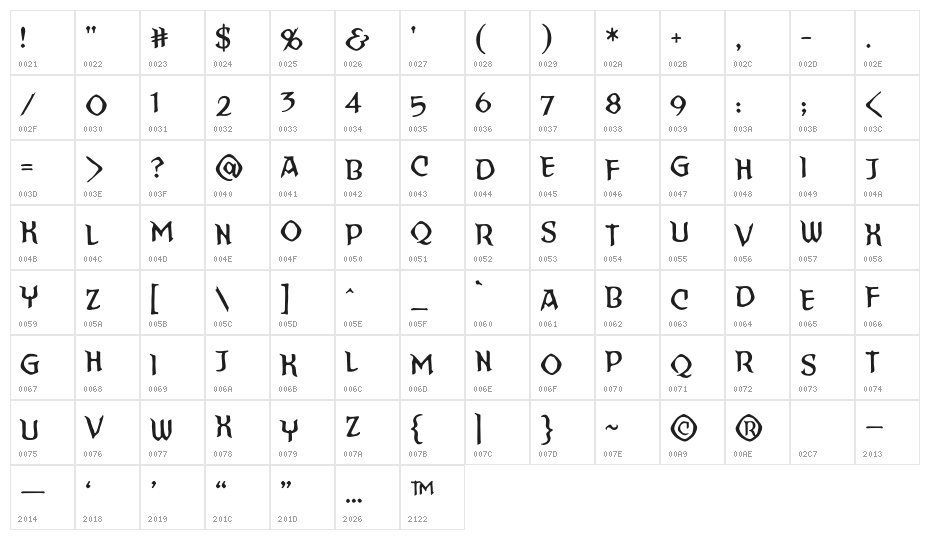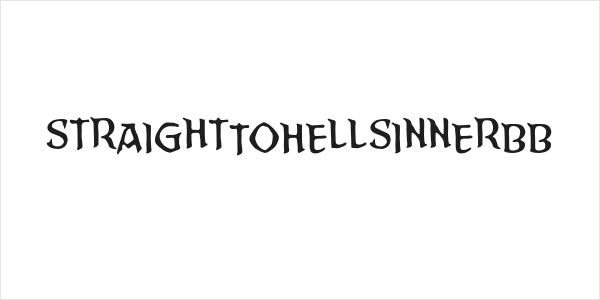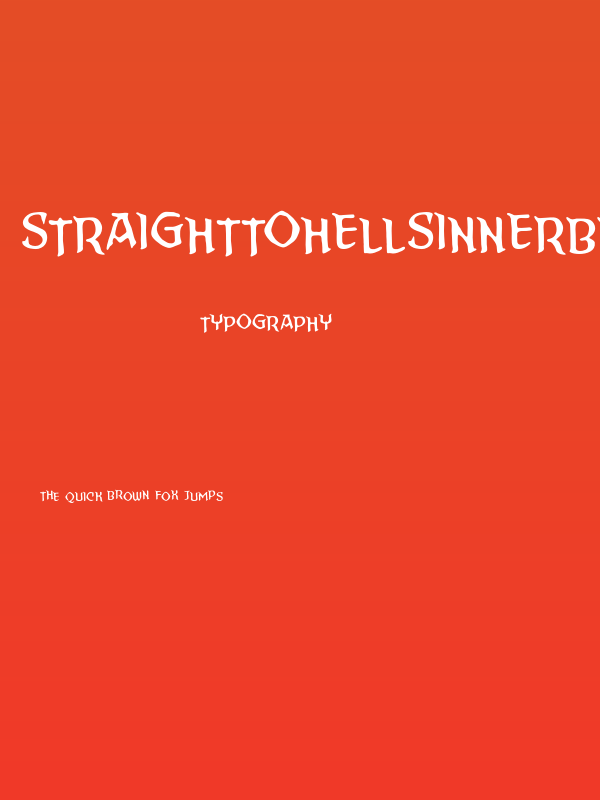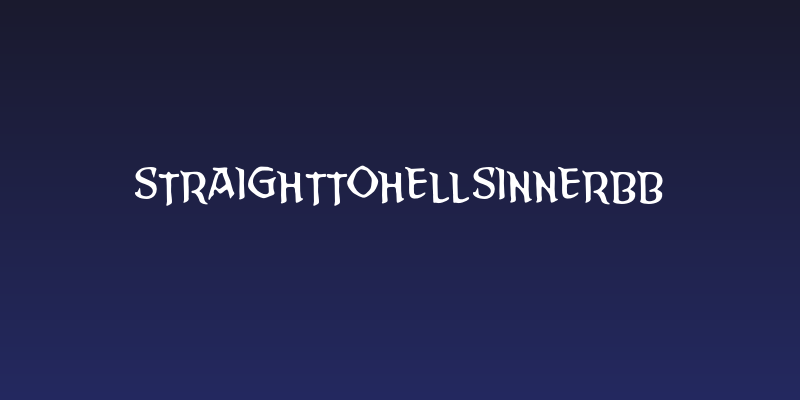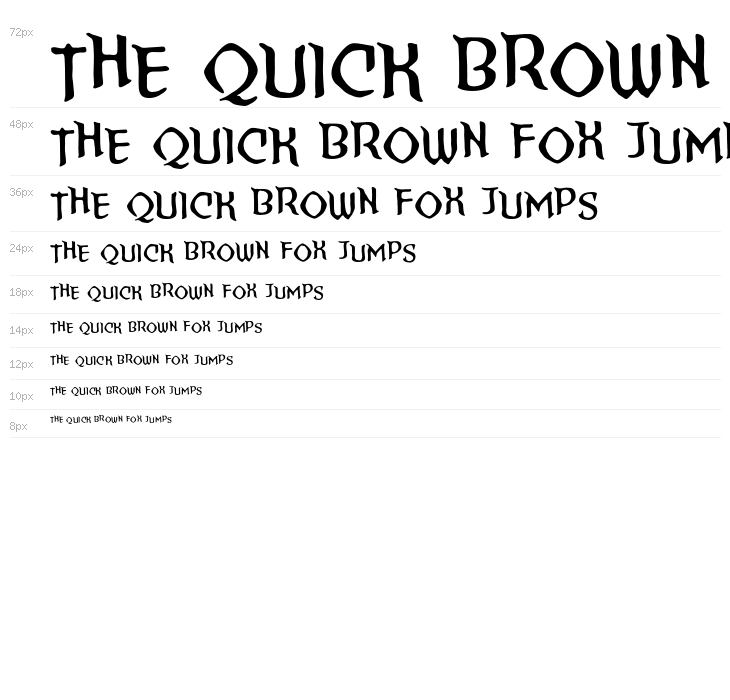
StraightToHellSinnerBB Font
✎ Gothic
| Kategorien | Gothic |
| Gesamtstil | Gothic, Edgy, Hand-drawn |
| Vorgeschlagene Projekte | Ideal for album covers, posters, branding for alternative or rock-themed events, and any design needing a bold, rebellious touch. |